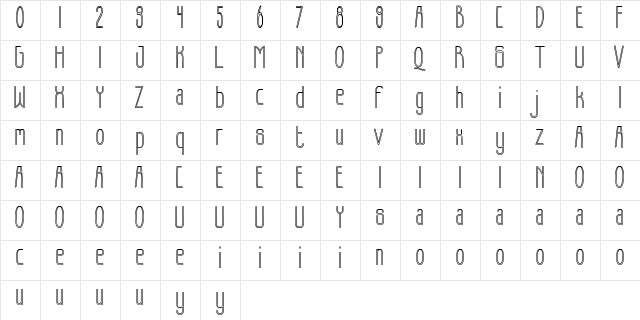
SUMMER LINE FREE Regular
| Foundry | Graphix Line Studio |
| Designer | Ipung |
Design Context for SUMMER LINE FREE Typeface
SUMMER LINE FREE offers clean, dependable letterforms without strong stylistic allegiance, making it a practical choice for designers who need flexibility.